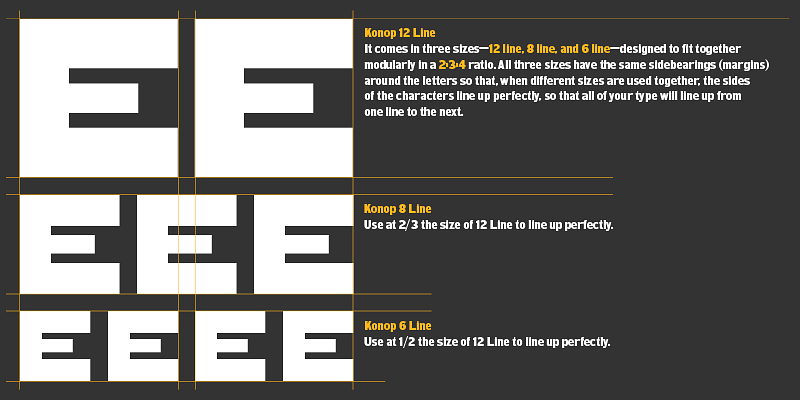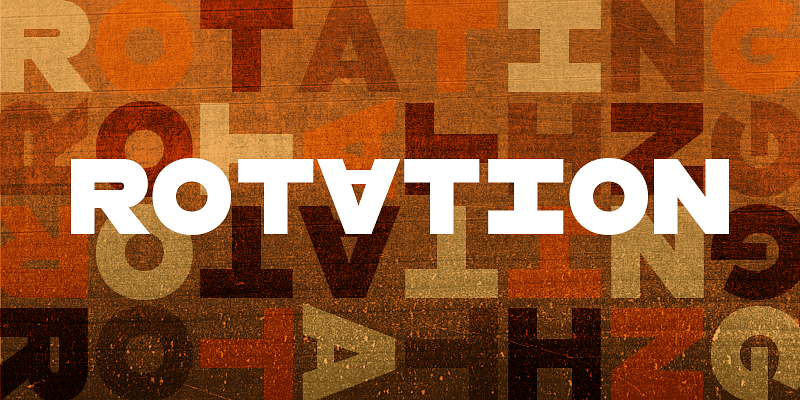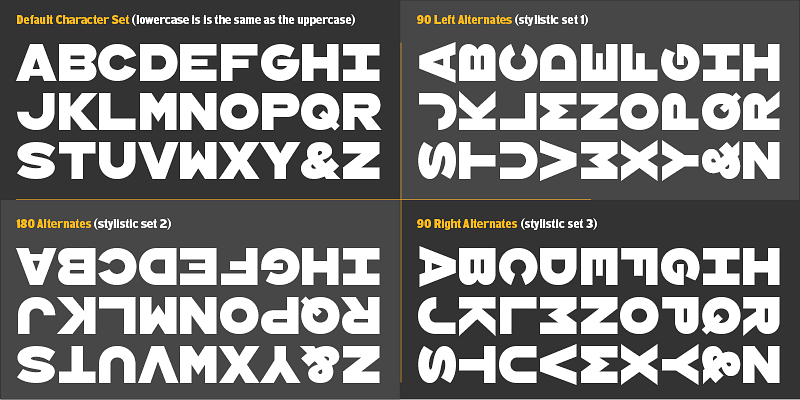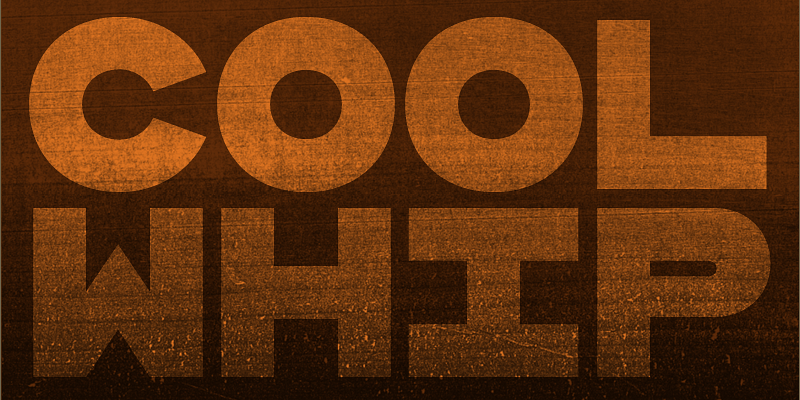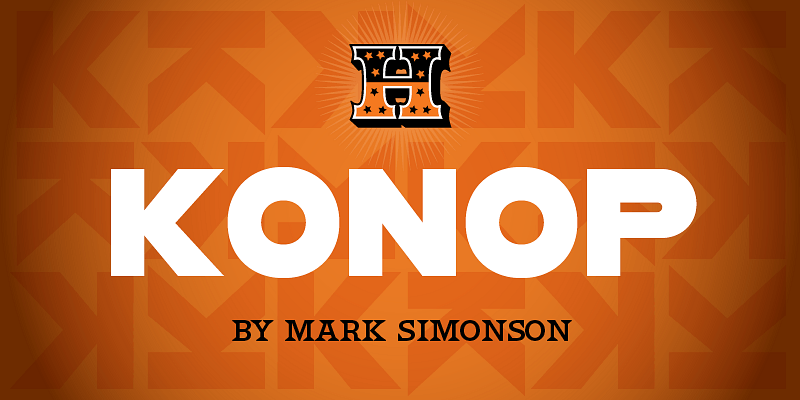
HWT Konop Font
The HWT Konop Font is perfect for vintage poster reproductions, historical wood type projects, traditional printing museum displays, classic letterpress designs, heritage typography exhibitions, antique signage recreations, period-accurate historical documents, traditional craftsmanship branding, authentic woodblock printing, and distinguished typographic restorations.
What makes the HWT Konop Font so exciting is its authentic preservation of historical wood type craftsmanship with meticulous attention to period detail that creates an unmatched connection to traditional printing heritage and typographic history. This distinguished typeface features genuine wood type construction, historical character proportions, and traditional printing elements that perfectly capture the essence of authentic letterpress culture and craftsman typography. The font's historical personality and traditional authenticity make it an exceptional choice for museums, historical societies, and heritage brands seeking to communicate typographic tradition, printing history, and authentic craftsmanship culture with genuine period accuracy.
The HWT Konop Font family includes historical variations and traditional alternates, featuring multiple wood type weights, period-accurate character options, and authentic printing styling elements. Each variation maintains the signature historical appeal while offering different levels of traditional expression and wood type authenticity, giving designers extensive creative possibilities for crafting genuine historical communications and heritage brand personalities that honor traditional printing craftsmanship.
The authentic historical characteristics of HWT Konop Font showcase masterful wood type typography preservation, with each letter featuring genuine printing construction elements and traditional craftsmanship details that enhance its historical credibility and period authenticity. The font's comprehensive character set includes uppercase and lowercase letters, numerals, historical punctuation, and traditional printing symbols, ensuring complete functionality for diverse heritage projects and international historical applications.
Specifically designed for both digital and print historical applications, this remarkable font maintains its wood type character and traditional printing integrity across all sizes and formats. From large-scale museum displays to detailed historical reproductions, HWT Konop Font performs exceptionally while preserving its distinctive traditional personality and authentic historical printing appeal.